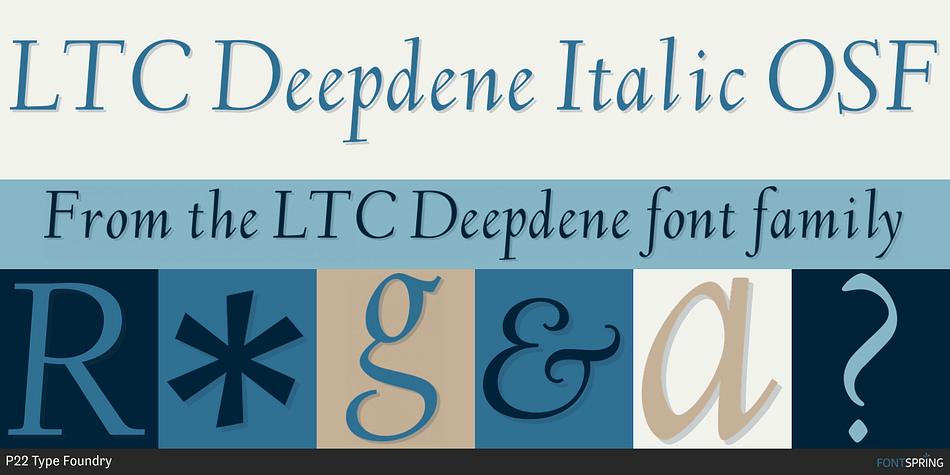
LTC Deepdene
Designed by Jim Rimmer, Frederic W. Goudy and Colin Kahn, LTC Deepdene is a serif font family. This typeface has nine styles and was published by P22 Type Foundry.
Deepdene is a classic Frederic Goudy design named after his modest estate in Marlboro New York. It was originally designed in 1927 for his own Village Letter Foundry but adapted to Lanston Monotype machine casting in 1928 with the addition of Italics. Like many of Goudy’s italics, the inclination is subtle and in his own words “drew each character without reference to any other craftsman’s work”. The digital version of this handsome series includes roman, italic, small caps, accents, ligatures and swash italic.
The original Lanston Monotype type showing stated “in placing crispness into Deepdene Bold Italic, Mr. Goudy has maintained in it the outstanding features of his other Deepdene faces…The inclination is somewhat less than usual in italic designs, and the letters have a pen drawn effect which is distinctive as well as pleasing. The Deepdene family is unique among Mr. Goudy’s diversified types.” We concur.